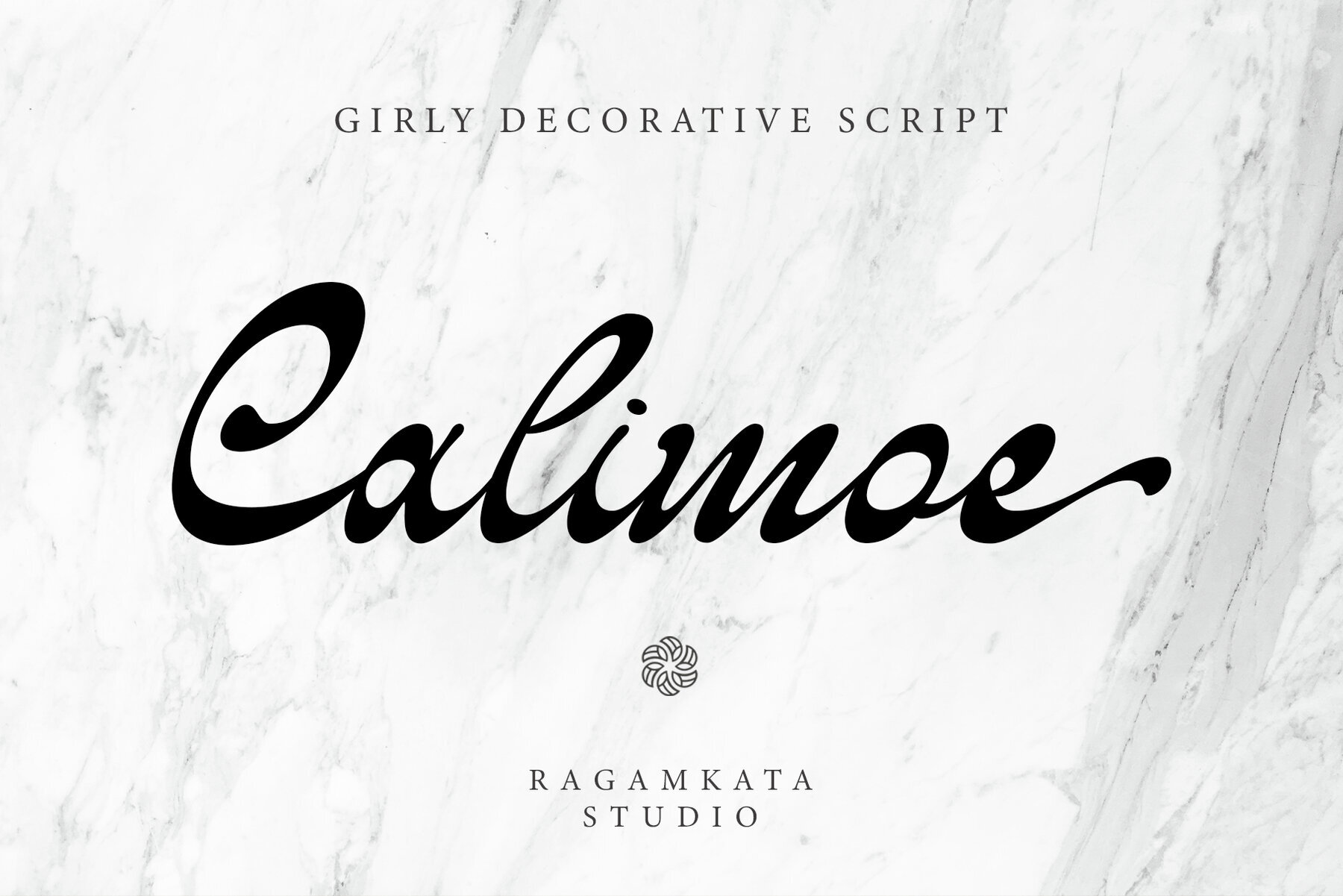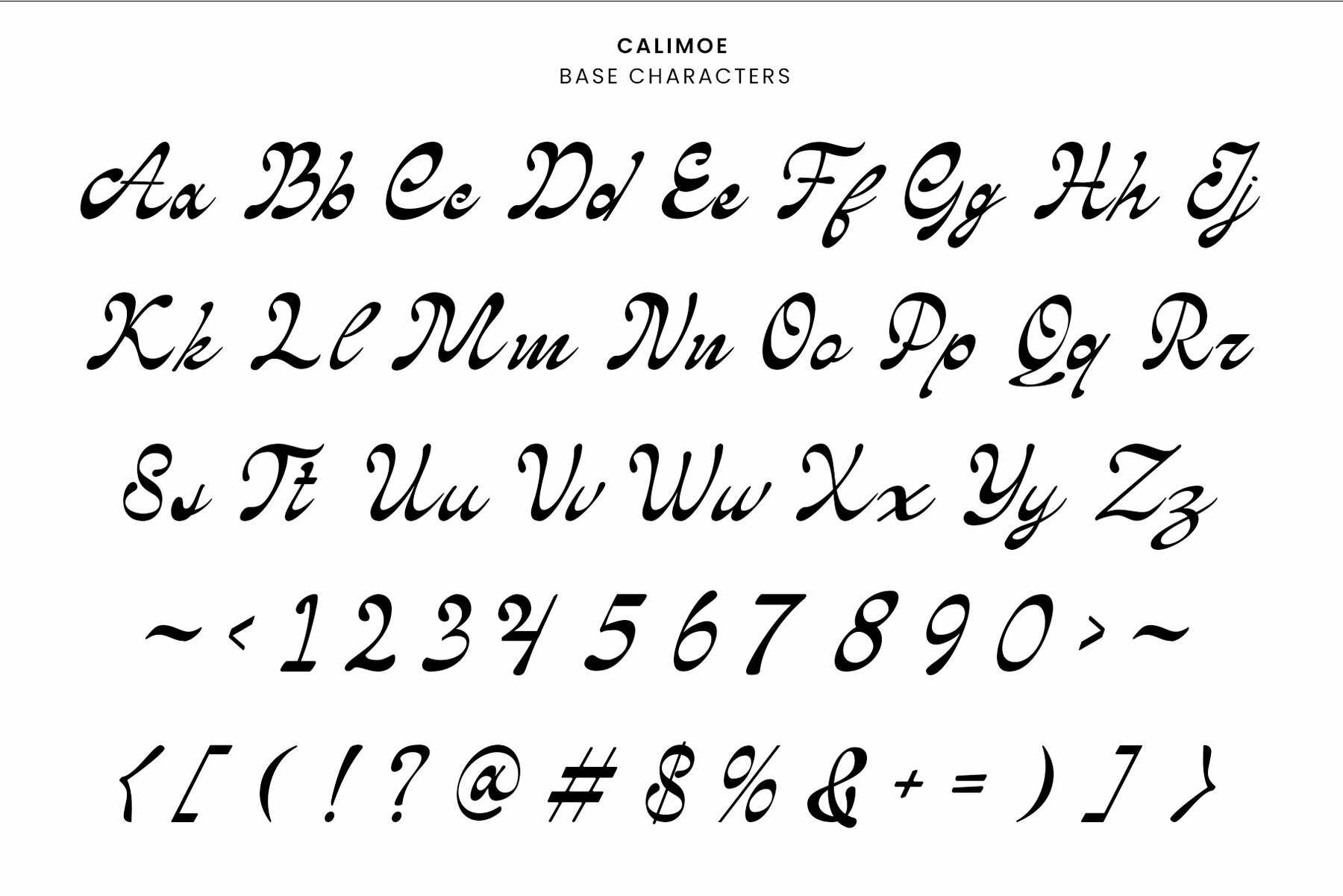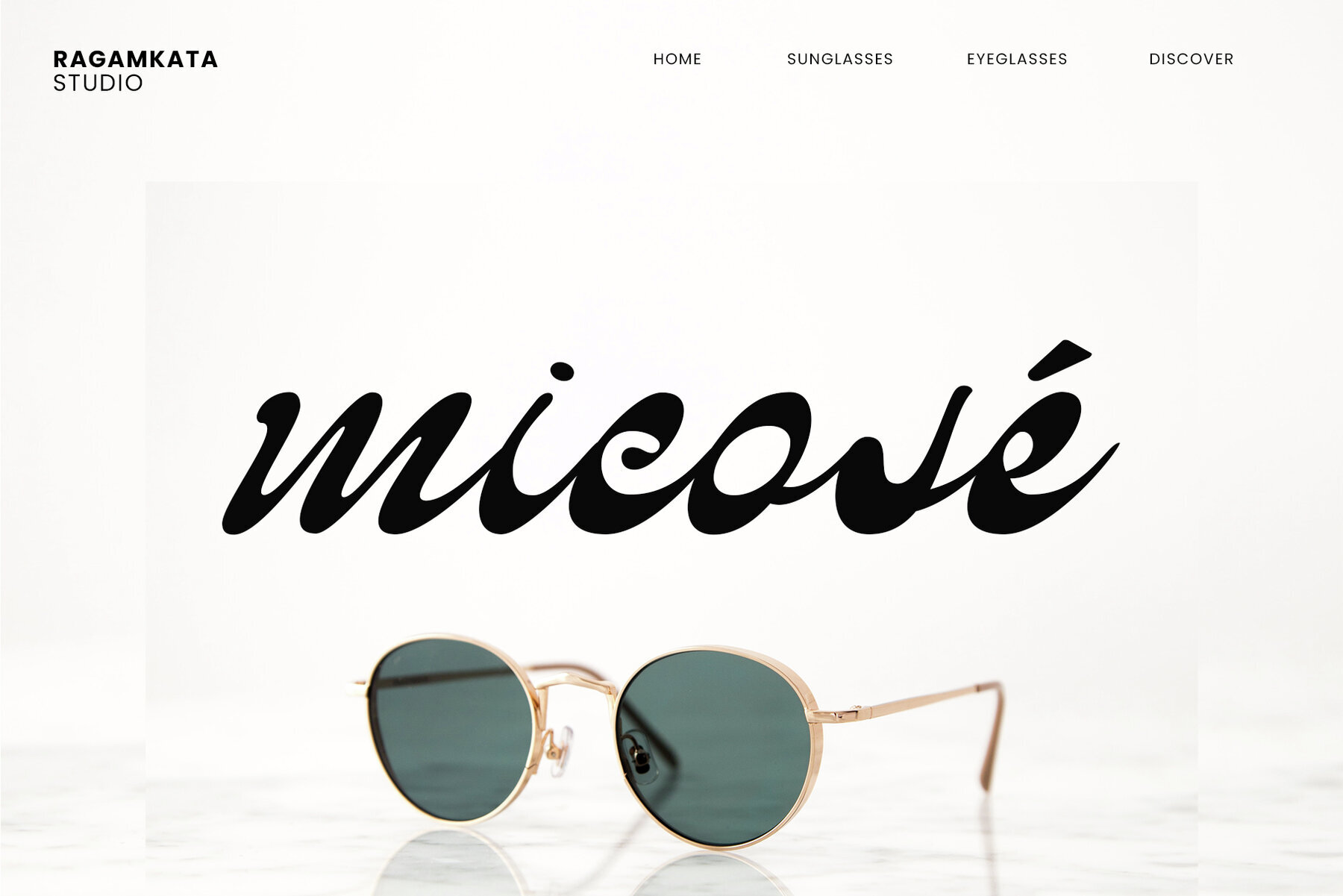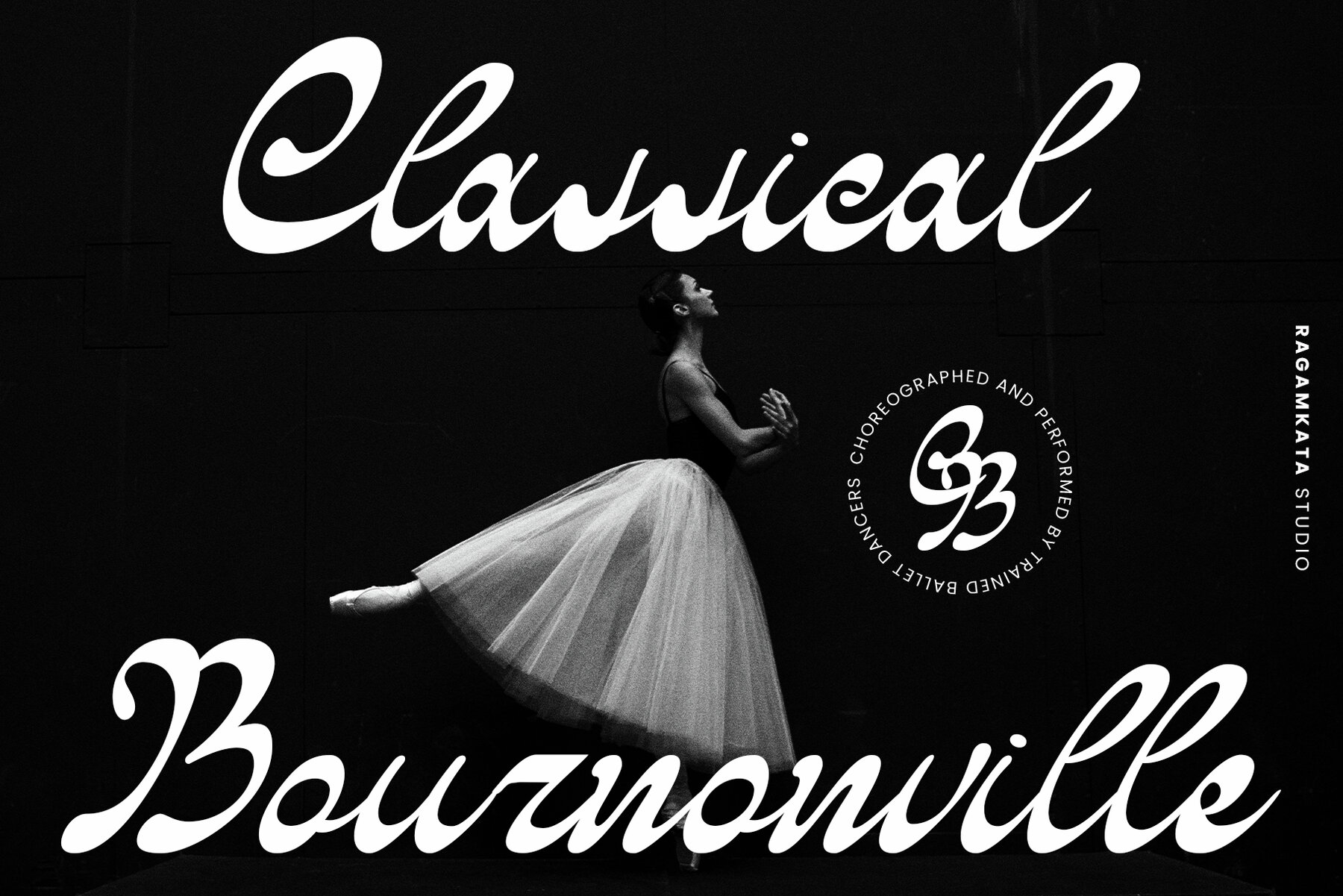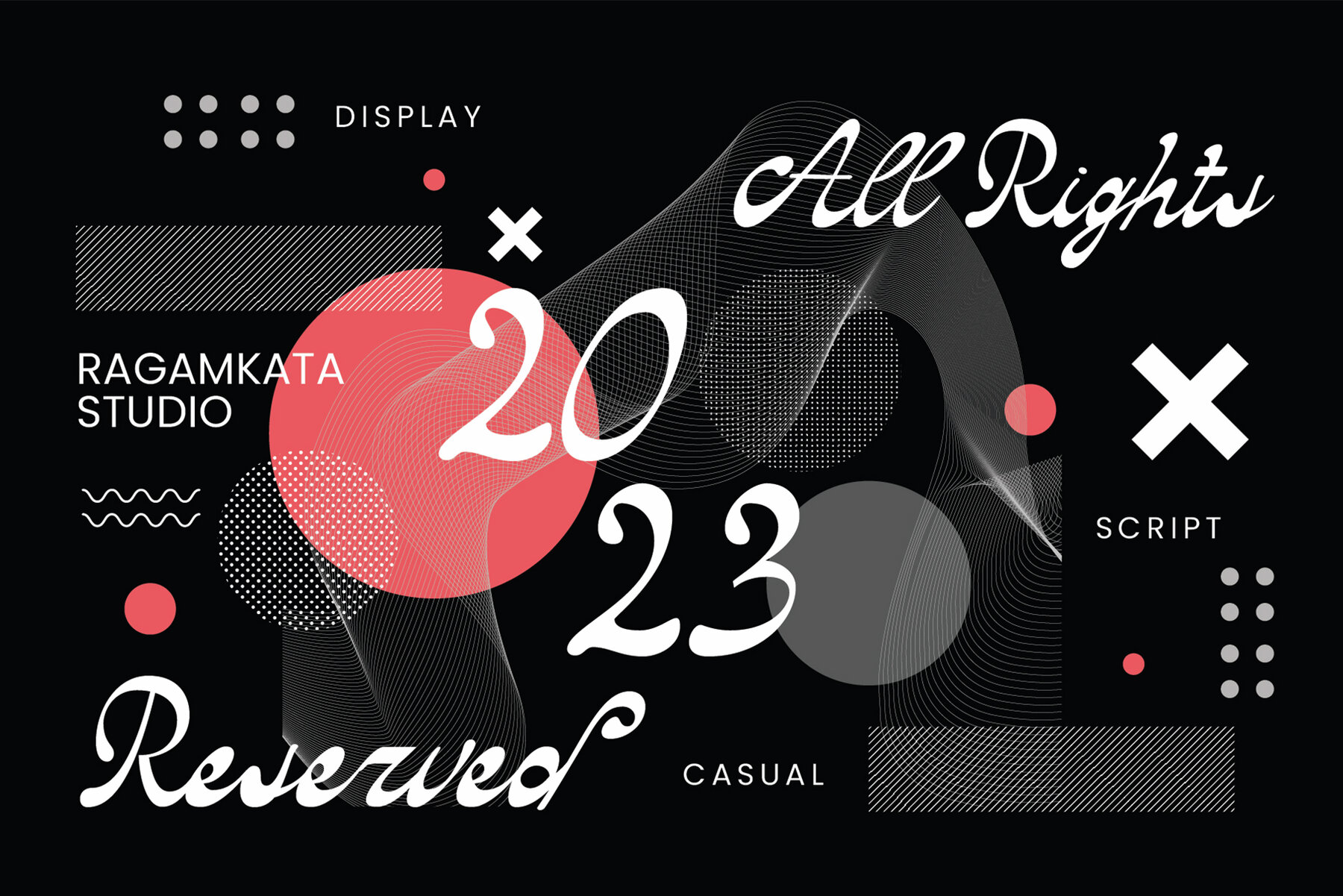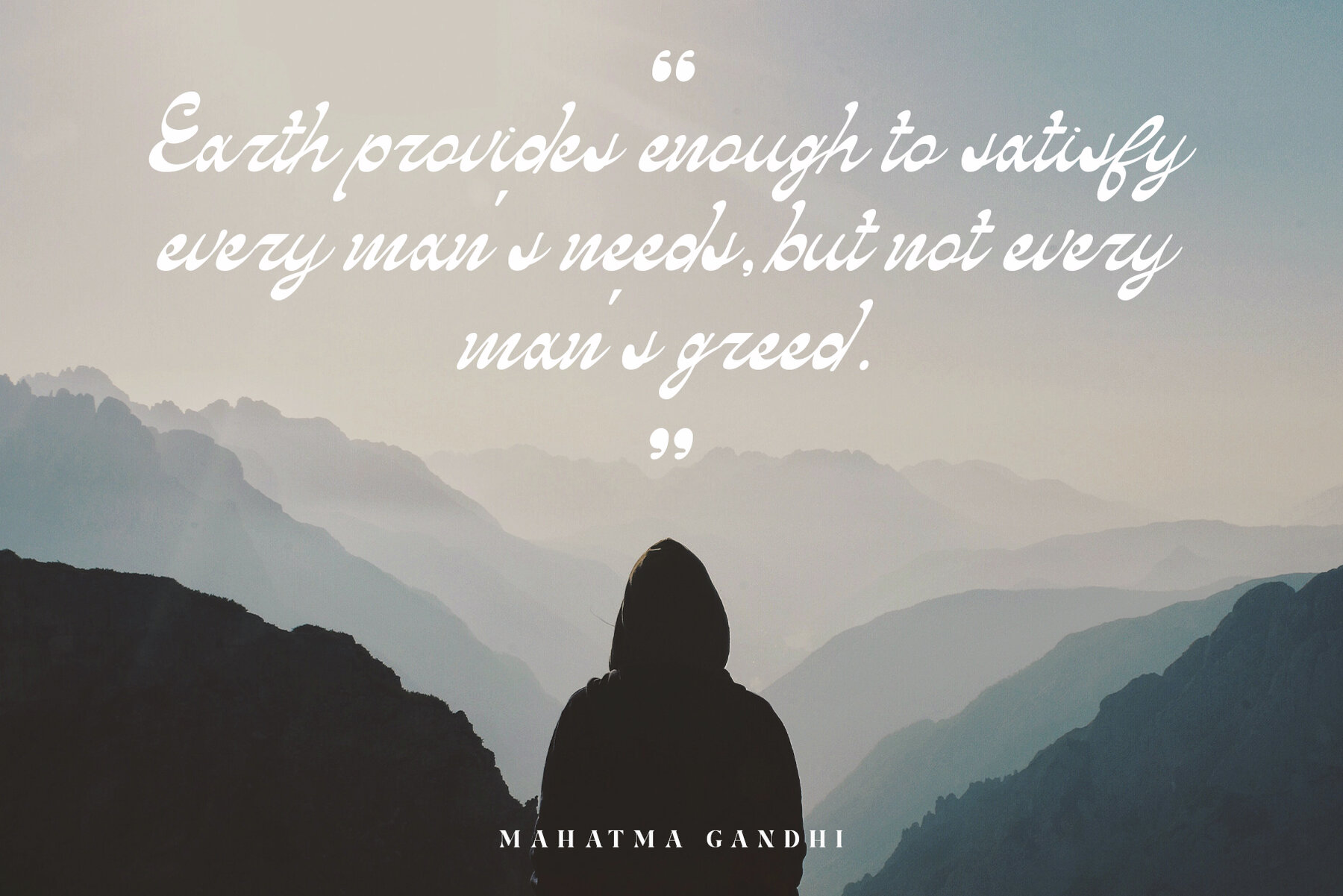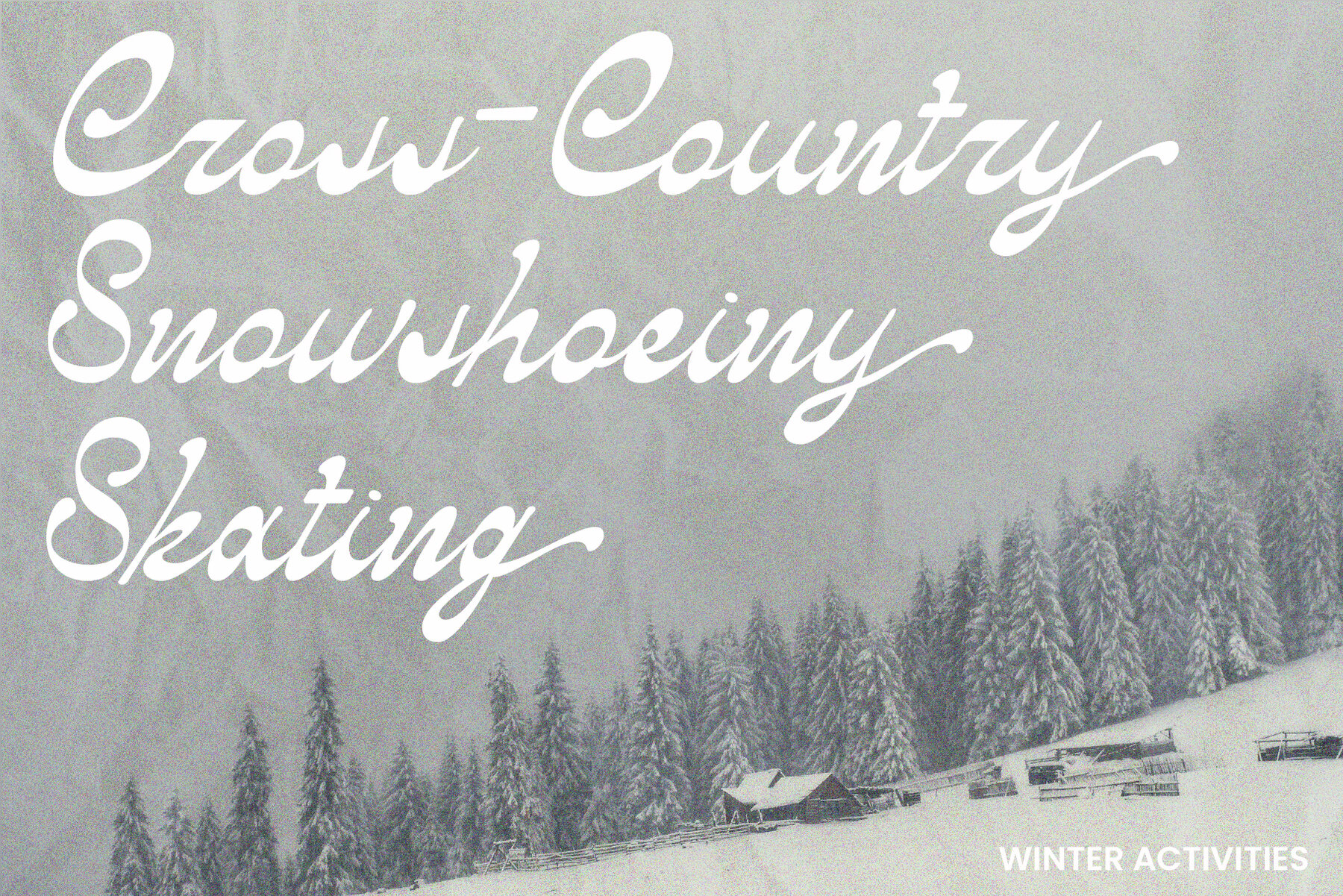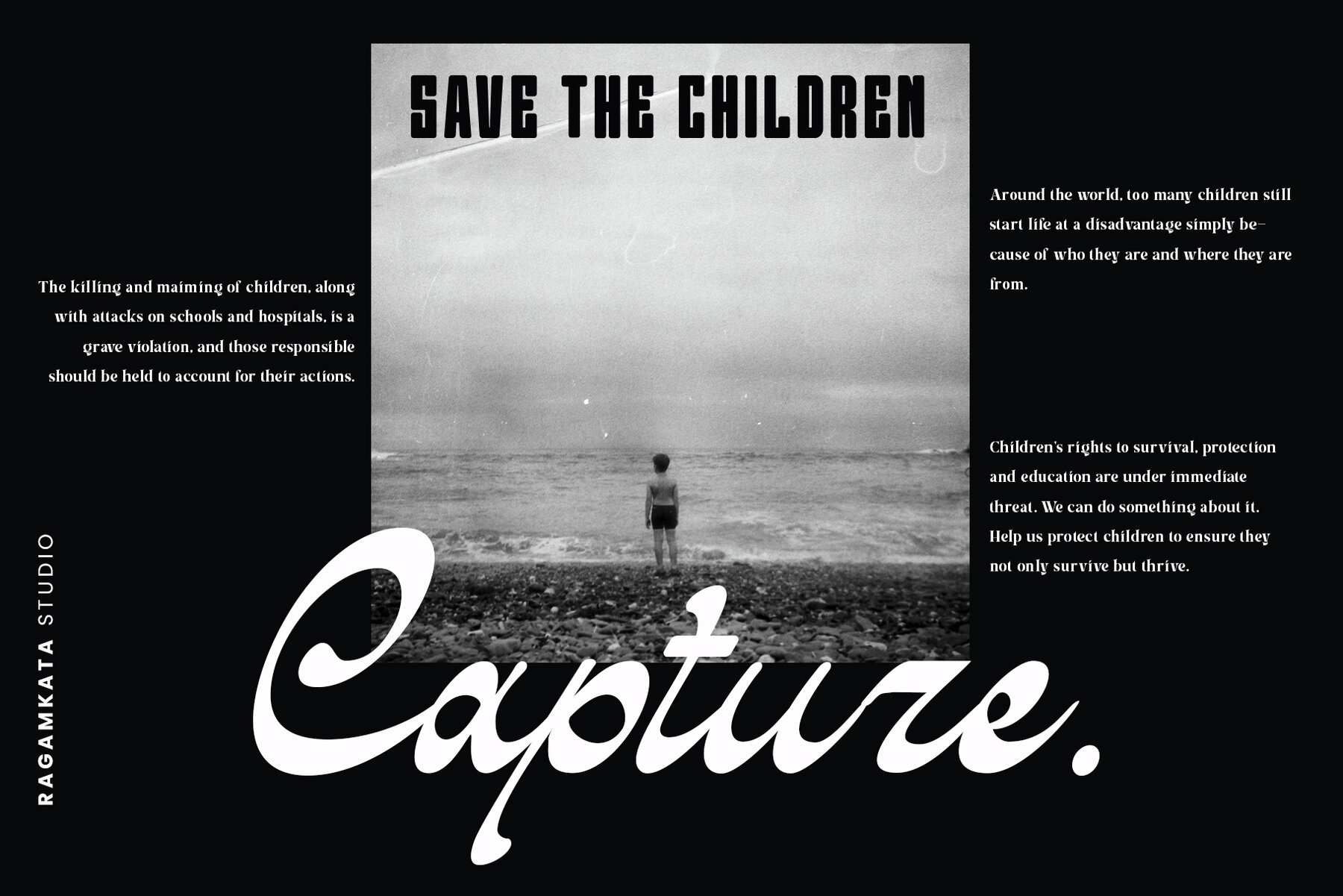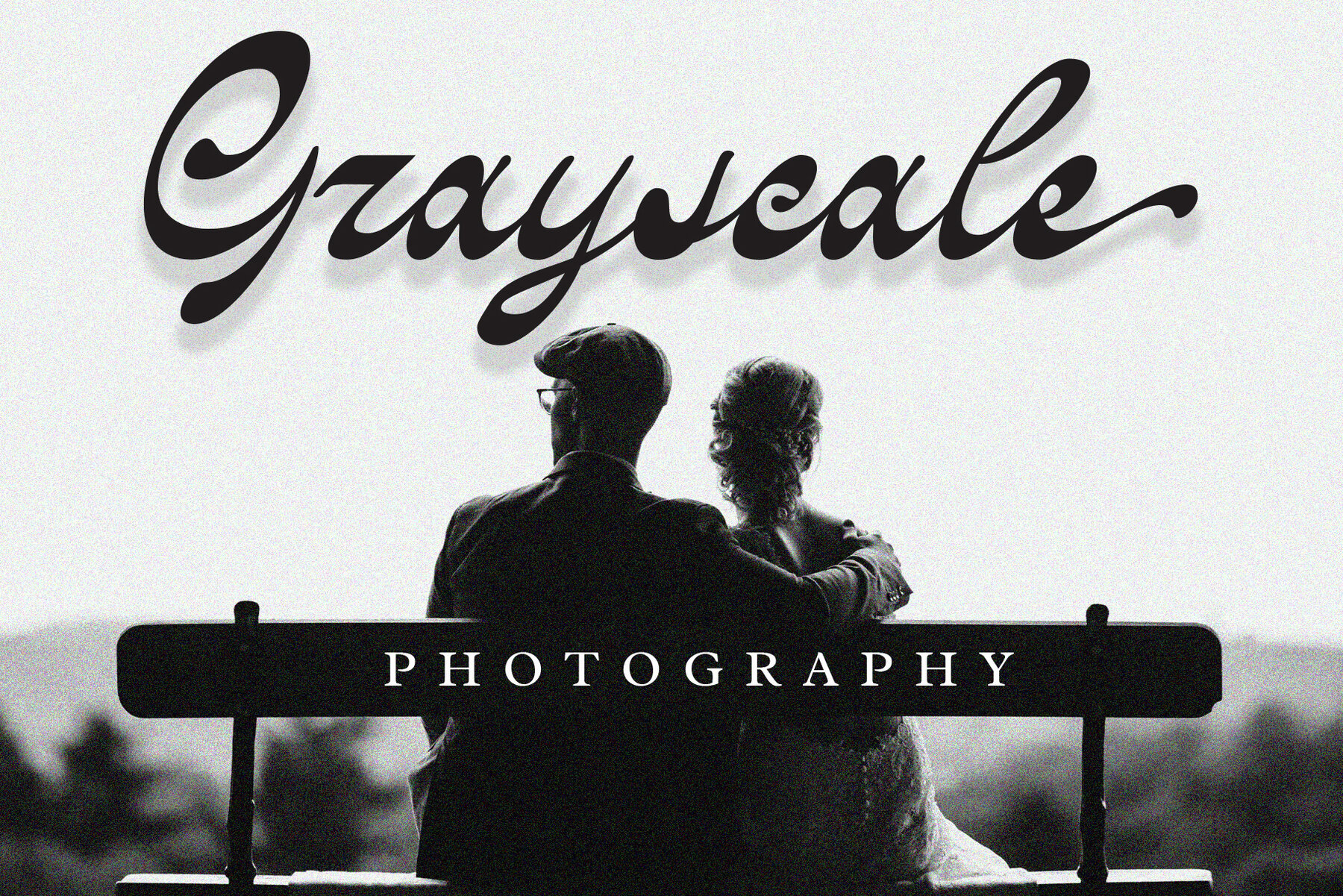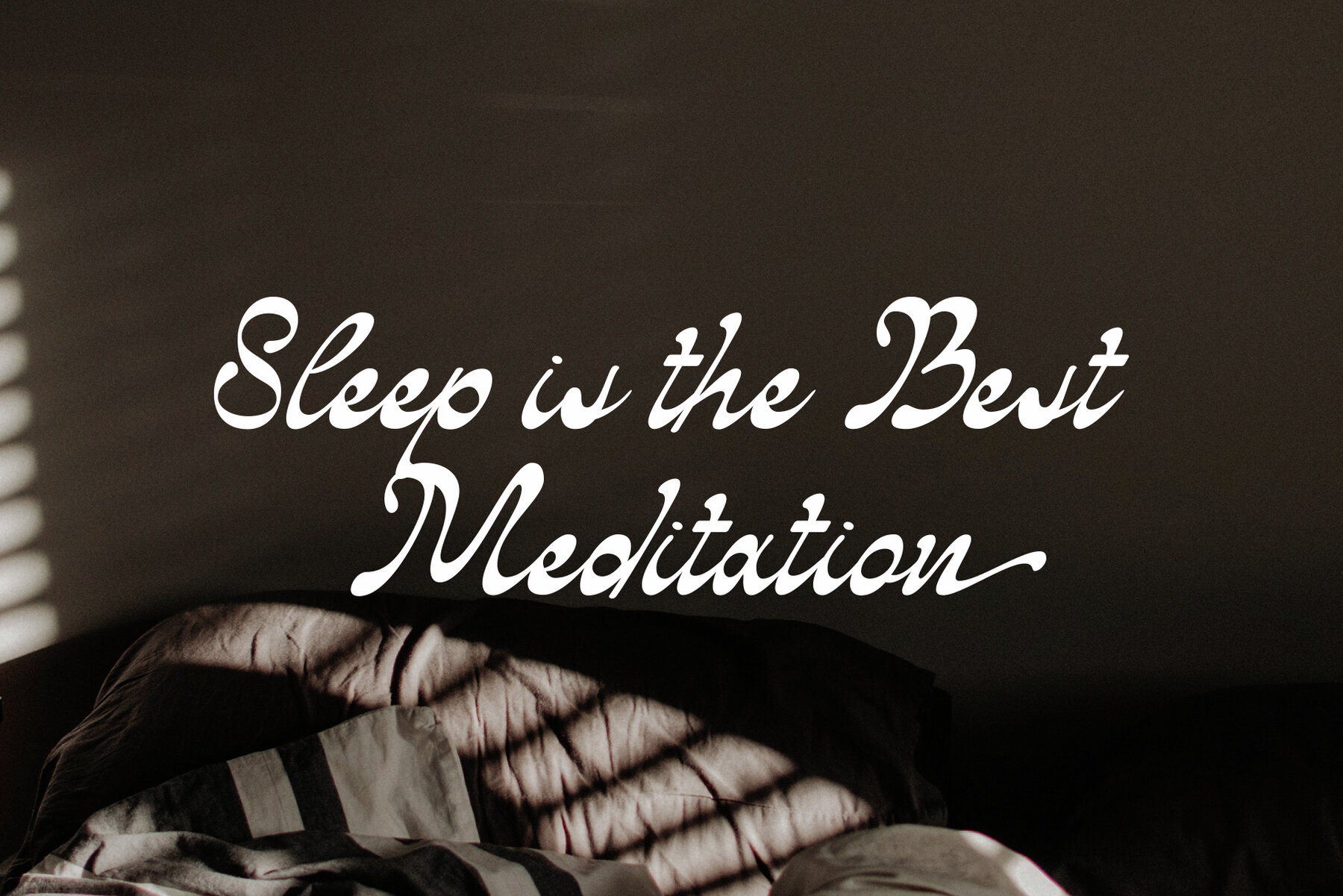
Calimoe Font
Calimoe Regular
Calimoe is a meticulously crafted script font that seamlessly blends elegance with a touch of modernity. This typeface is perfect for designers seeking a stylish, clean, and display-worthy font for various creative projects. While being stylish, Calimoe remains highly legible.Calimoe: Elegant Script Font with Modern Flair